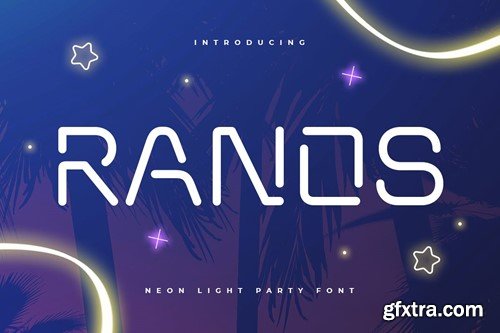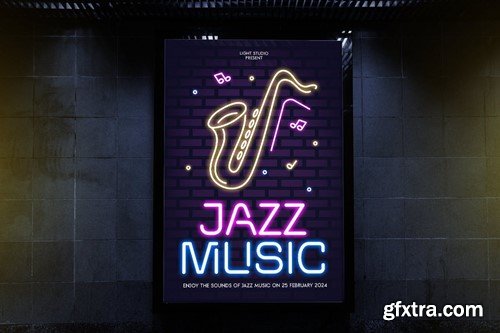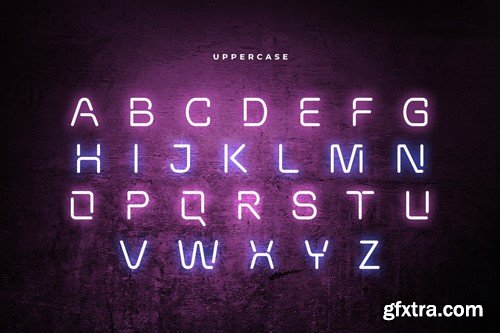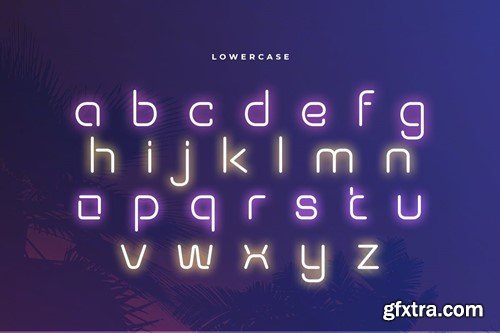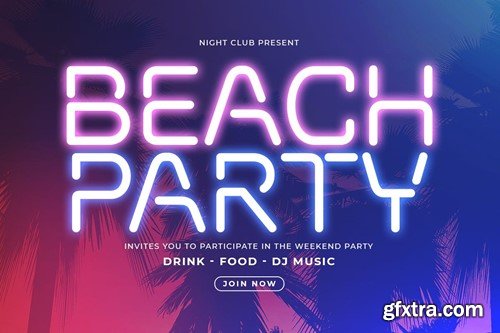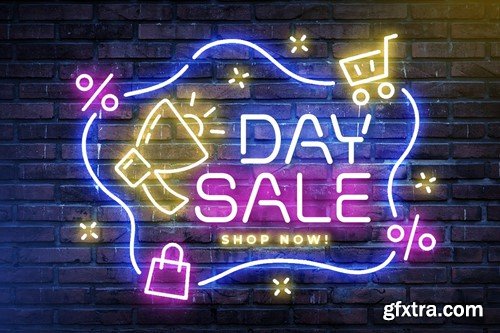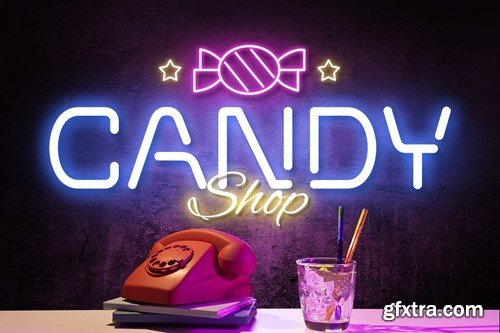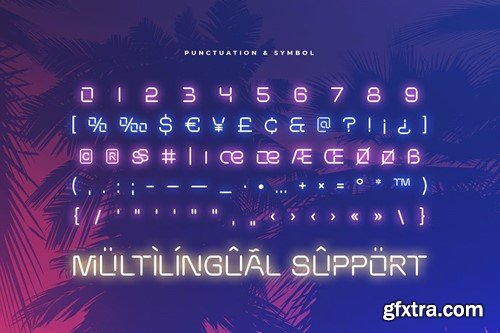
RANOS - Neon Light Party Font T75EUPQ
RANOS - Neon Light Party Font
RANOS Neon Light Font, unique shape that perfect for party and any events, make your design look Unique. A new Display Font that we created special for Headline, Title and more stand out typography needs. It's so perfect to add your style and headline overview. And specially for this font, we crafted for unique style and modern feels so enjoy to create any project that will show your main idea out. RANOS Neon Light Party Font ready with: Wish you enjoy our font. :)